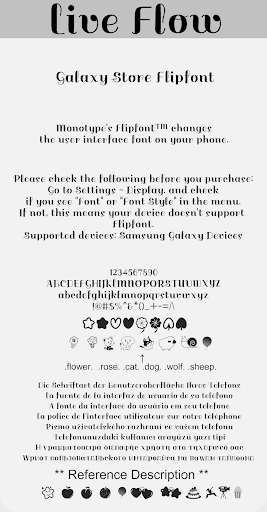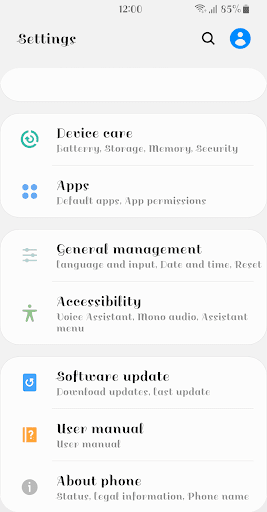
BRLiveFlow
It's a font that flows naturally.
This font has some feature.
1 .flower. .rose. .cat.. .dog. wolf. sheep. ,heart, ,star, ,boy, ,girl, ,club, ,phone, ,finger, ==> Convert to Icon
2 .^^. .\/. .**. .Apple. .apple. .peach. .Peach. .pear. .Pear. .balloon. .Balloon.
.heart. .Heart. .star. .Star. .cake. .Cake. .dance. .Dance.
.car. .Car. .train. .Train. .movie. .camera. .pocorn. .snail.